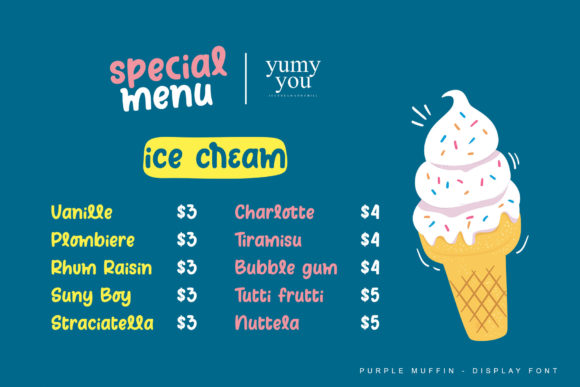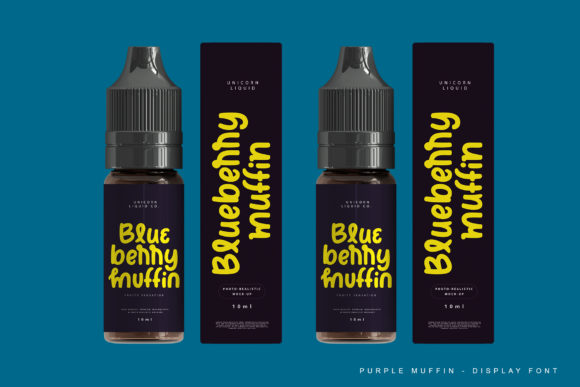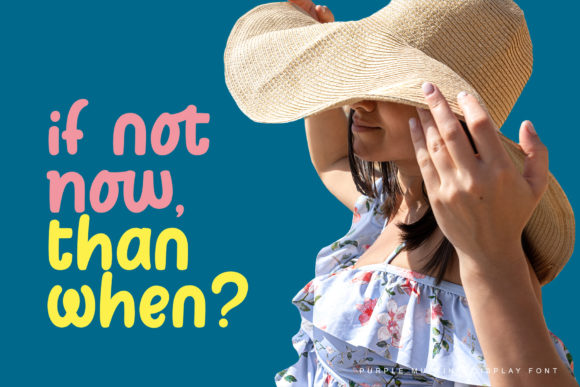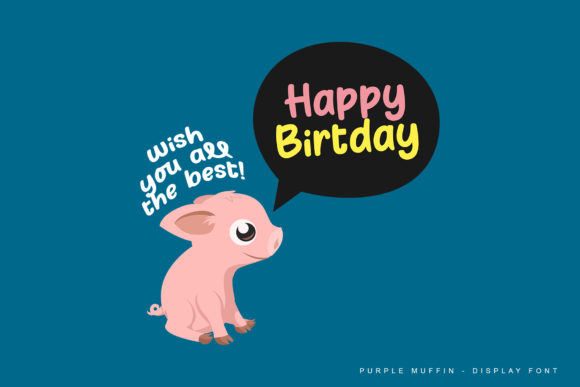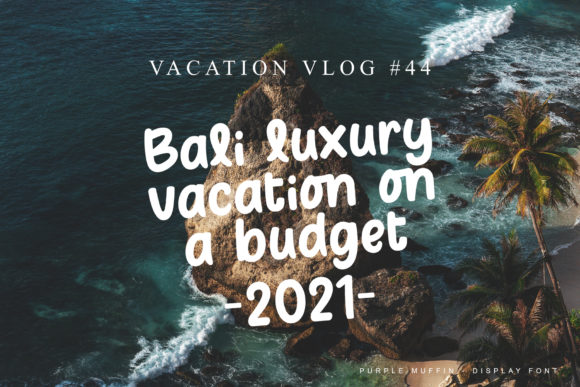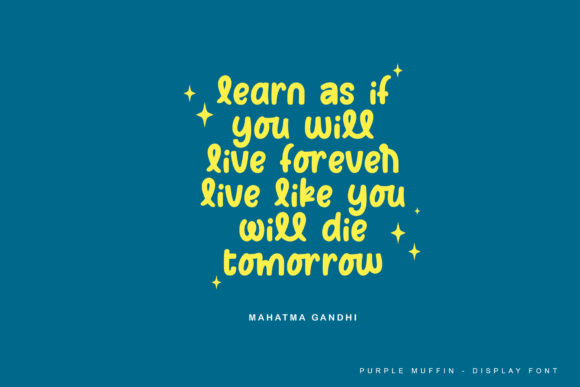
Introduction to Purple Muffin Font
Do you ever find yourself scrolling through social media, and suddenly, a beautifully designed graphic or post stops you in your tracks? For me, it was a quirky greeting card featuring the Purple Muffin Font that sparked my interest in this playful display font. The combination of its unique style and the transparent background used in the design made it truly stand out.
As a designer, I know how valuable it is to have access to high-quality design resources that can elevate any creative project. That’s why I’m excited to dive into the world of the Purple Muffin Font, and explore its potential as a go-to font for various occasions. Whether you’re working on a digital design, making greeting cards, or creating presentations, this font has the potential to add a touch of personality and whimsy to your work.
Key Features of Purple Muffin Font
- Unique, cursive font with a whimsical feel, perfect for adding a touch of elegance to your design.
Honest Review: Purple Muffin Font
As a designer, I’ve come across many fonts, but the Purple Muffin Font caught my attention due to its unique charm and free download availability. This font is a great design resource for anyone looking to add a touch of whimsy to their creative project.
Here are some features that work well for me: ✨ Unique typography with a playful twist, ✨ Highly legible in both digital and print formats, and ✨ Compatible with most design software.
- High-quality design that exudes creativity
- Transparency in the background options for seamless layering
However, I did encounter a few limitations: ⚠️ Limited character set, making it less versatile for extensive text-based projects, ⚠️ Not ideal for use as a primary font in formal documents.
Overall, the Purple Muffin Font is a wonderful addition to any designer’s toolkit. Its creative charm and free download make it an excellent choice for casual projects and experiments. While it may not be suitable for all types of projects, it’s an excellent resource for designers looking to inject some personality into their work.
How to Use Purple Muffin Font
The Purple Muffin Font is a high-quality design resource ideal for creative projects. It features a unique and playful style, making it perfect for adding a touch of whimsy to your designs.
Getting the Most Out of Purple Muffin Font
To get the most out of the Purple Muffin Font, be sure to use it on a transparent background to create a seamless and professional design.
The Purple Muffin Font is perfect for:
- Creating invitations and party decor
- Designing logos and branding materials
- Adding a touch of whimsy to social media graphics and blog posts